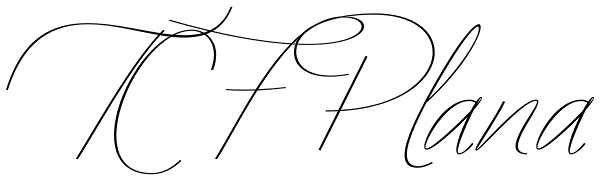
TCF Plana
Very thin fluid strokes and high speed letters form this casual script entitled TCF Plana. TCF Plana is elegant and functional, expressive yet harmonious, with more bounce and irregularity of rhythm than usual formal script typefaces. TCF Plana was...